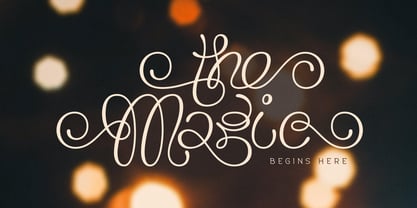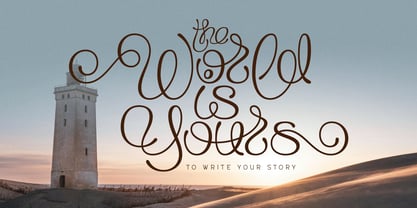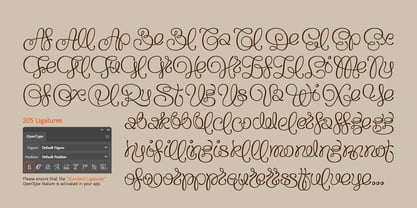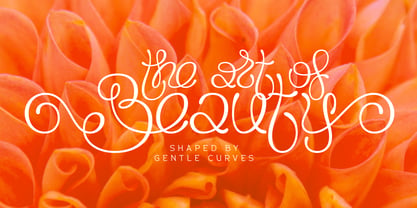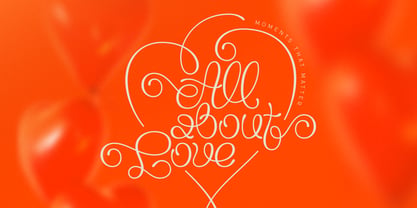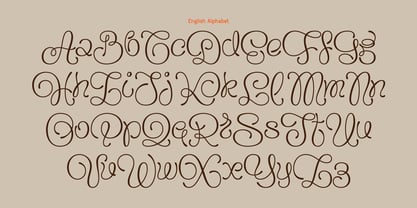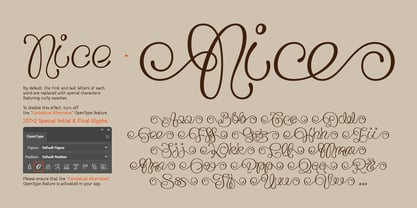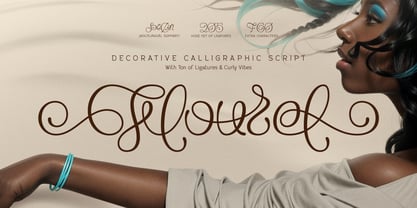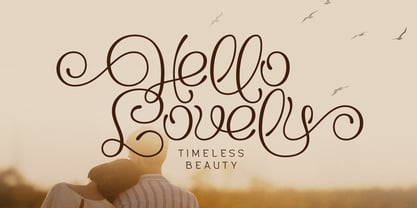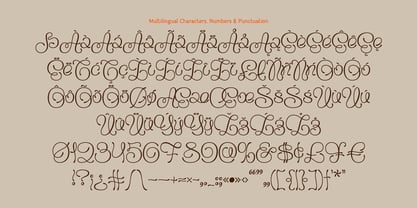
Flourel
Hi, introducing a decorative calligraphic font named Flourel. It's an elegant script type with curly vibes & smooth shapes. Flourel font includes a lot of extra glyphs, such as various ligatures & letters with swashes. By default, the first and last letters of each word are replaced with special characters featuring curly swashes. In some cases, short words, such as articles etc. comes with extended ligatures featuring playful swashes on both sides. This font offers multilingual support — check out the screenshots to see the full character set.
A lot of my fonts inherits vintage graphic styles but nevertheless I don't like to stick to one theme for a long time. That's why I'm trying to create fonts in different styles and from different eras, from old gothic calligraphic to modern handwritten scripts, from medieval antique to minimalist sans-serif typefaces. It's always interesting to design something new, and expand my skills in novel font design directions.